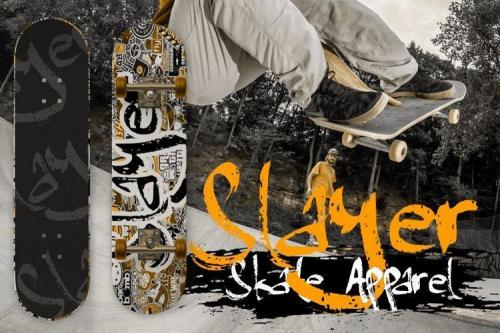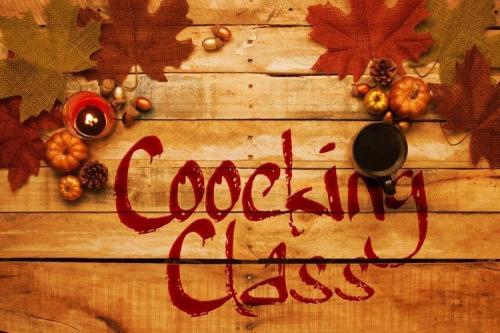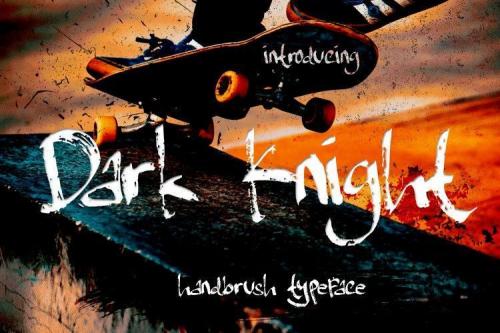
Dark Knight Font is a handwritten brush font with a bold twist, designed by RT Studio.
It will add an authentic spark to any creative project! dark Knight is a very nice font for logos, blog / web headlines, clothing, invitations, posters, cafe / restaurant signs, quotes and many others. Happy design!